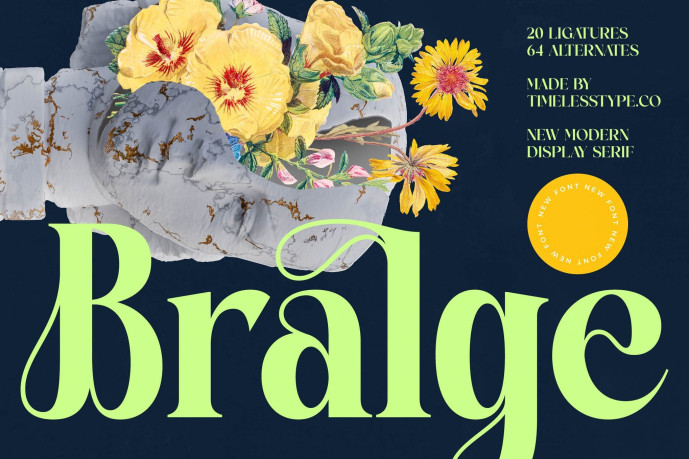
Bralge Font
Designer: timelesstypestudio
Bralge Font is a modern display serif font that beautifully blends bold sophistication with artistic flair. With 20 ligatures, 64 alternates, and elegant, high-contrast strokes, this font offers endless creative expression — perfect for branding, packaging, editorial layouts, fashion campaigns, and luxury logos.
Each letter of Bralge is crafted with attention to harmony and proportion, combining timeless serif structure with contemporary details. Its refined curves and confident presence make it an exceptional choice for designers aiming to achieve elegance, creativity, and modern allure in one typeface.